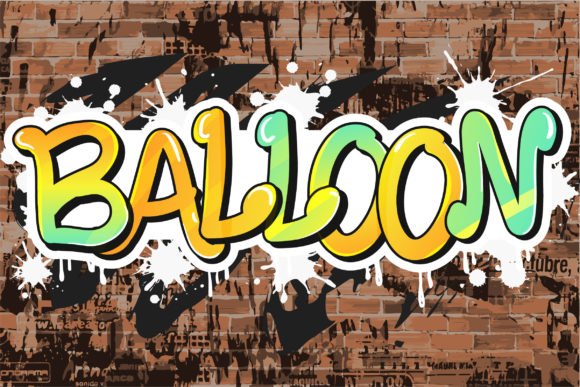
Get Ready to Pop with the Balloon Font
You’re brainstorming ideas for a new project, and suddenly, the streets of your city come alive in your mind. The vibrant colors, the bold typography, and the rebellious spirit of street art inspire you to create something truly unique. This is where the Balloon Font comes in – a stunning, graffiti-styled display font that captures the essence of urban culture.
Designed to add a touch of edginess to your designs, the Balloon Font is perfect for logos, advertisements, clothing, and more. Its versatility makes it an invaluable tool for designers who want to make a statement without compromising on style.
With the Balloon Font, you’ll be able to infuse your designs with a dash of street cred and a whole lot of personality. Whether you’re working on a t-shirt design, a sportswear campaign, or a logo for a trendy brand, this font is sure to elevate your creative game.
Balloon Font Key Features
- Font Family: Balloon Font is a unique, hand-drawn font that can be used for various purposes, including invitations, posters, and other creative projects.
- Unique Characteristics: The font features a playful, whimsical design with rounded shapes and soft lines, giving it a friendly and approachable feel.
Designer Review: Balloon Font
At first glance, Balloon Font is a playful and whimsical font that can add a fun touch to any design project. ✨ Its rounded shapes and varied sizes make it perfect for creating visually appealing headlines and titles.
- Works well for:
- Children’s products and educational materials
- Party and event invitations
- Whimsical and creative branding
However, there are some limitations to consider. ⚠️ The font’s inconsistent spacing and irregular letterforms can make it challenging to use in large blocks of text or for body copy. Additionally, the font’s rounded shapes can make it difficult to read in smaller sizes.
Overall, I would recommend Balloon Font for designers who need a fun and playful font for specific projects. While it’s not ideal for body copy or large blocks of text, it’s perfect for adding a pop of personality to a design. With careful use and consideration, Balloon Font can be a valuable addition to any designer’s toolkit.
Tips for Getting the Most Out of Balloon Font
Use Balloon Font to add a playful and whimsical touch to your designs. It’s perfect for creating eye-catching headlines, titles, and other text elements. Experiment with different font sizes, colors, and arrangements to create visually appealing effects.
Balloon Font is ideal for:
- Creating eye-catching headlines and titles
- Designing playful and whimsical graphics
- Adding a touch of personality to your branding and marketing materials
- Creating interactive and engaging presentations
Alternatives to Balloon Font for Designers
1. Comic Sans
Comic Sans is a playful, cursive font often used for informal and casual designs. It’s a good choice for designs that require a lighthearted and approachable tone. However, its use is often criticized for being overused and unprofessional.
Comparison to Balloon Font: Comic Sans is more cursive and has a more playful feel, whereas Balloon Font is more rounded and cartoonish. Comic Sans is generally considered less suitable for professional designs.